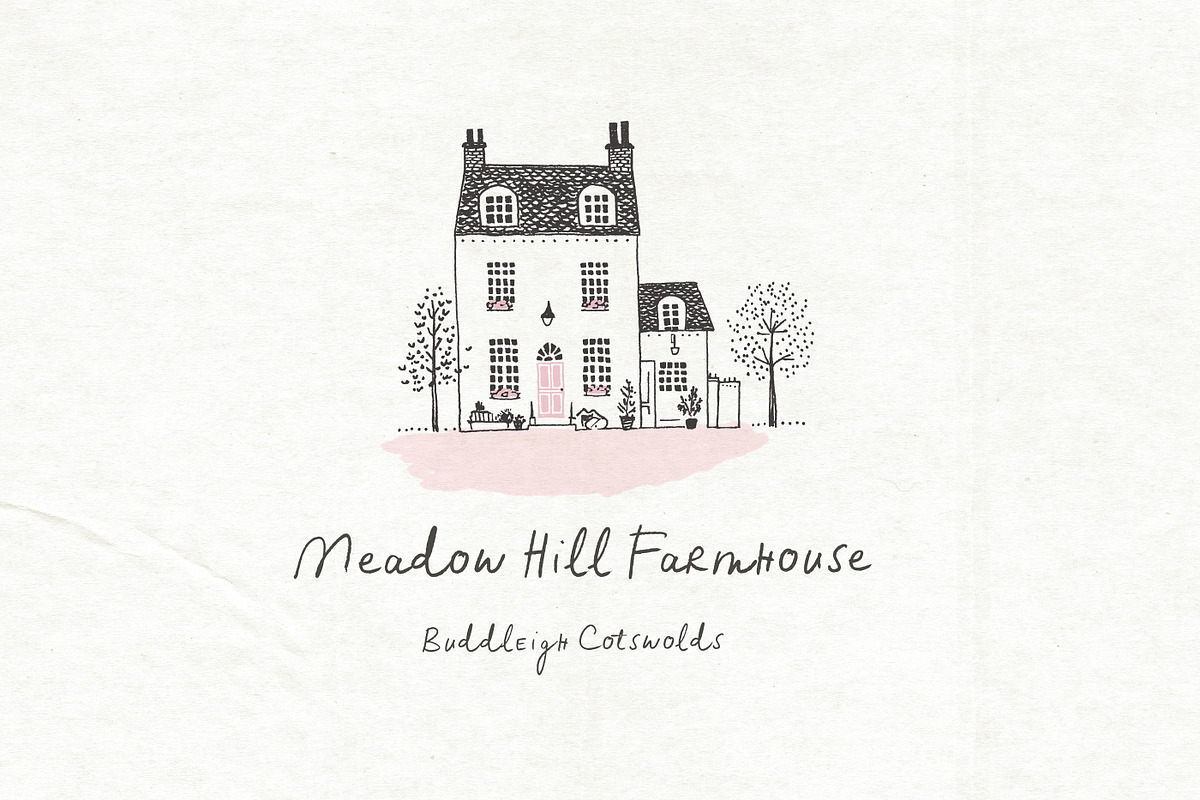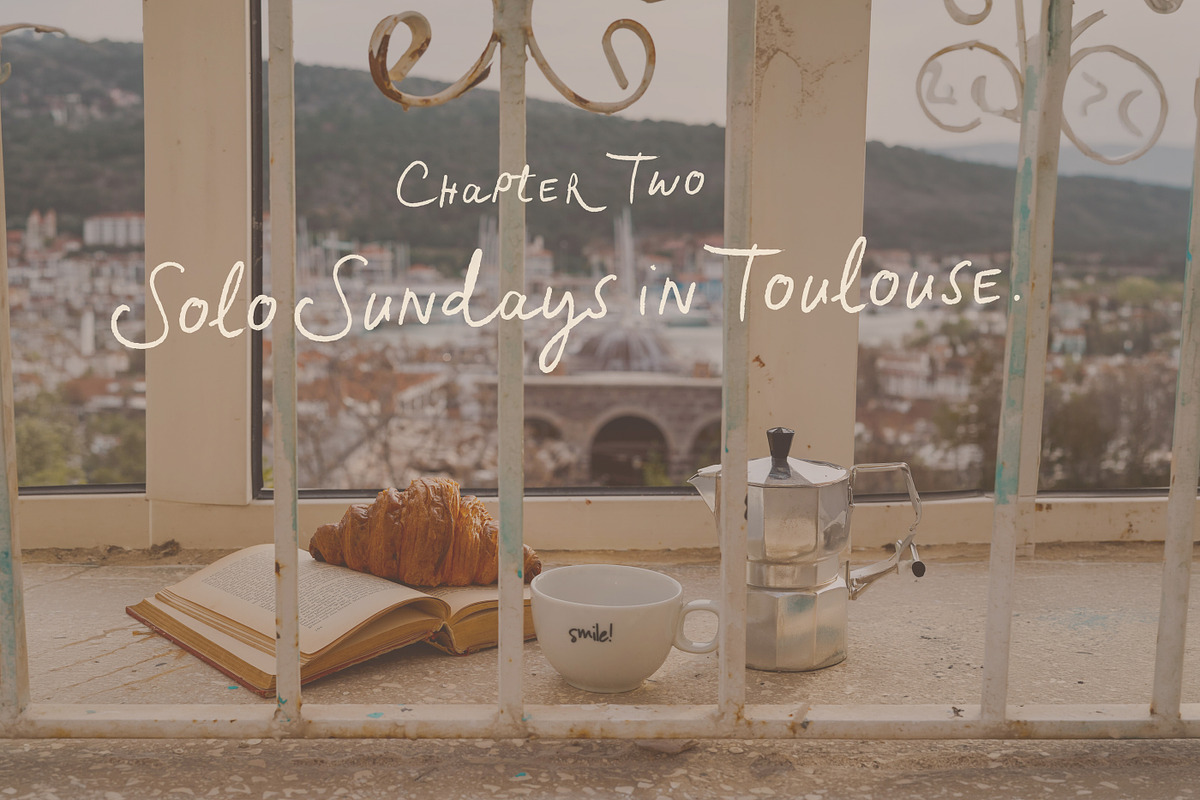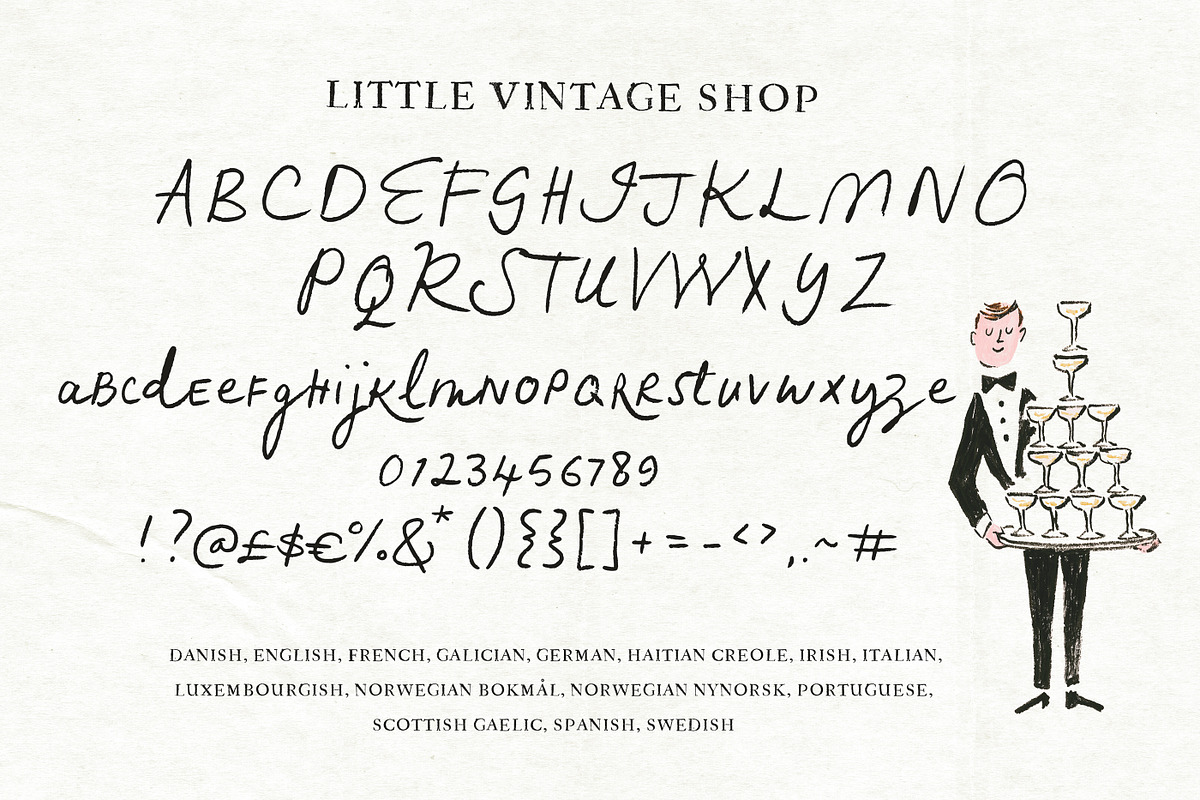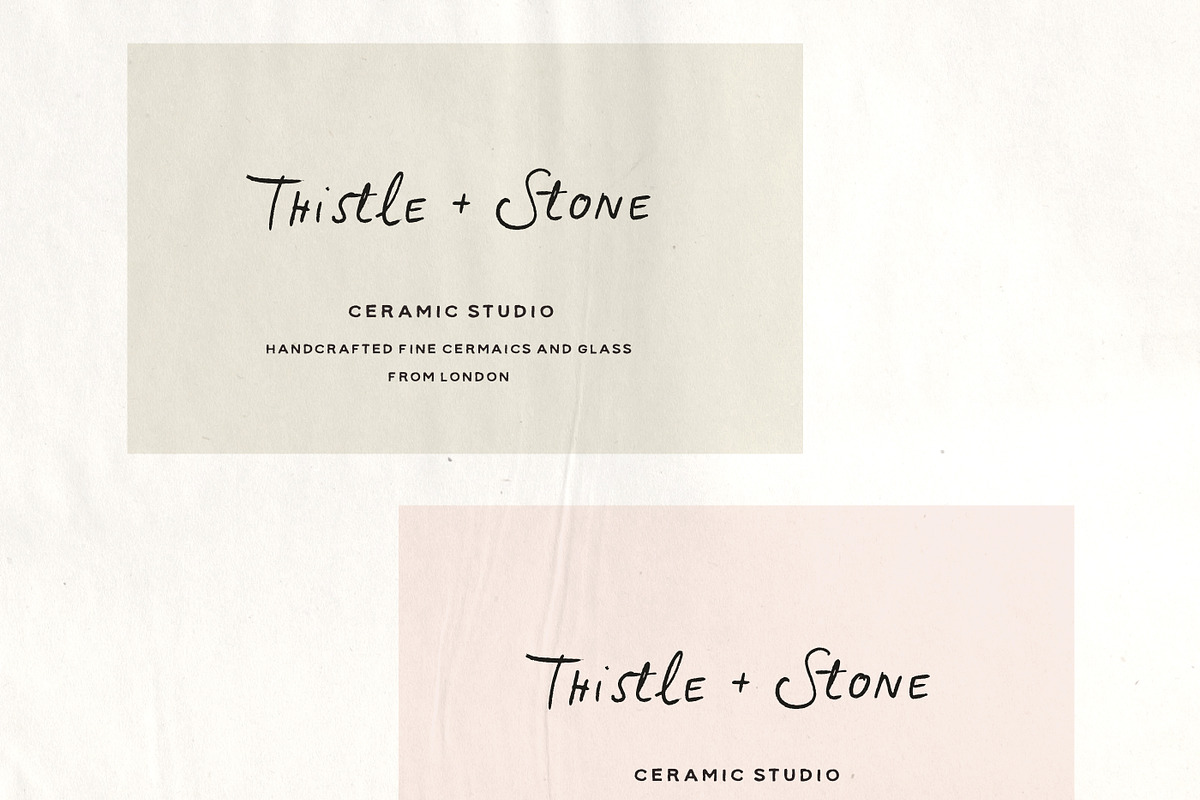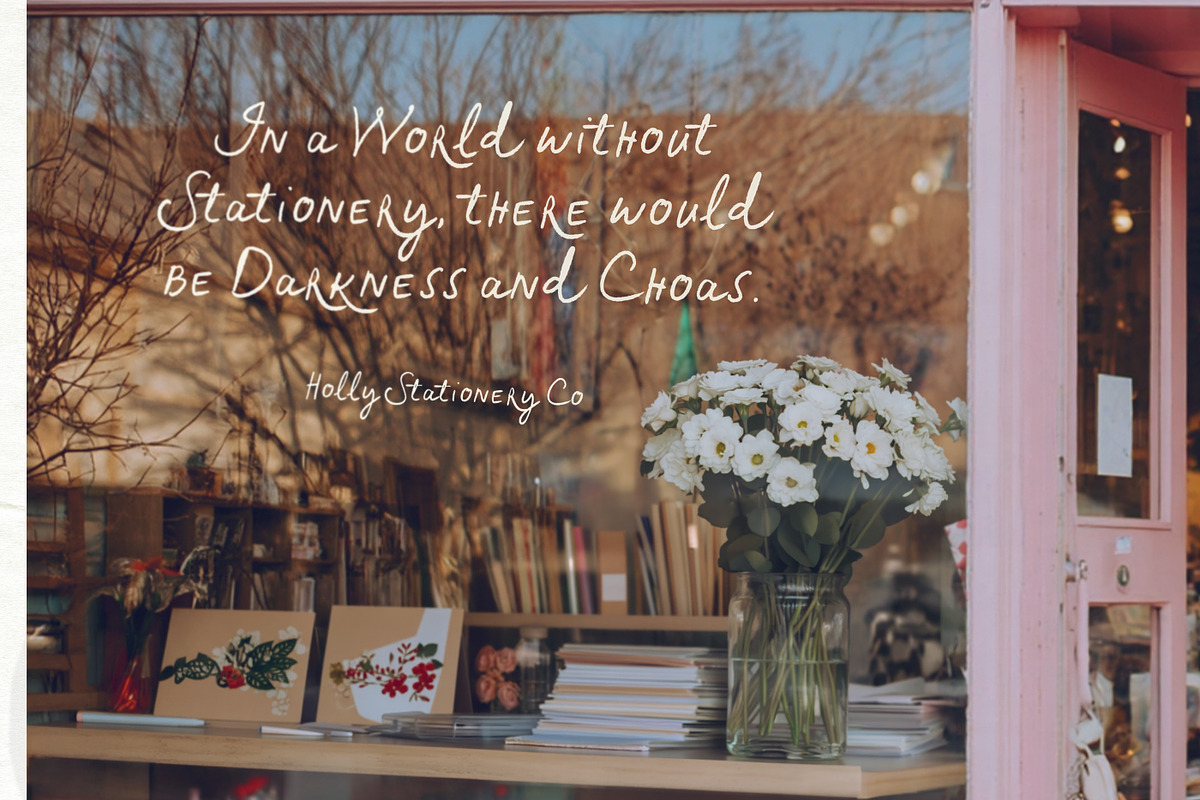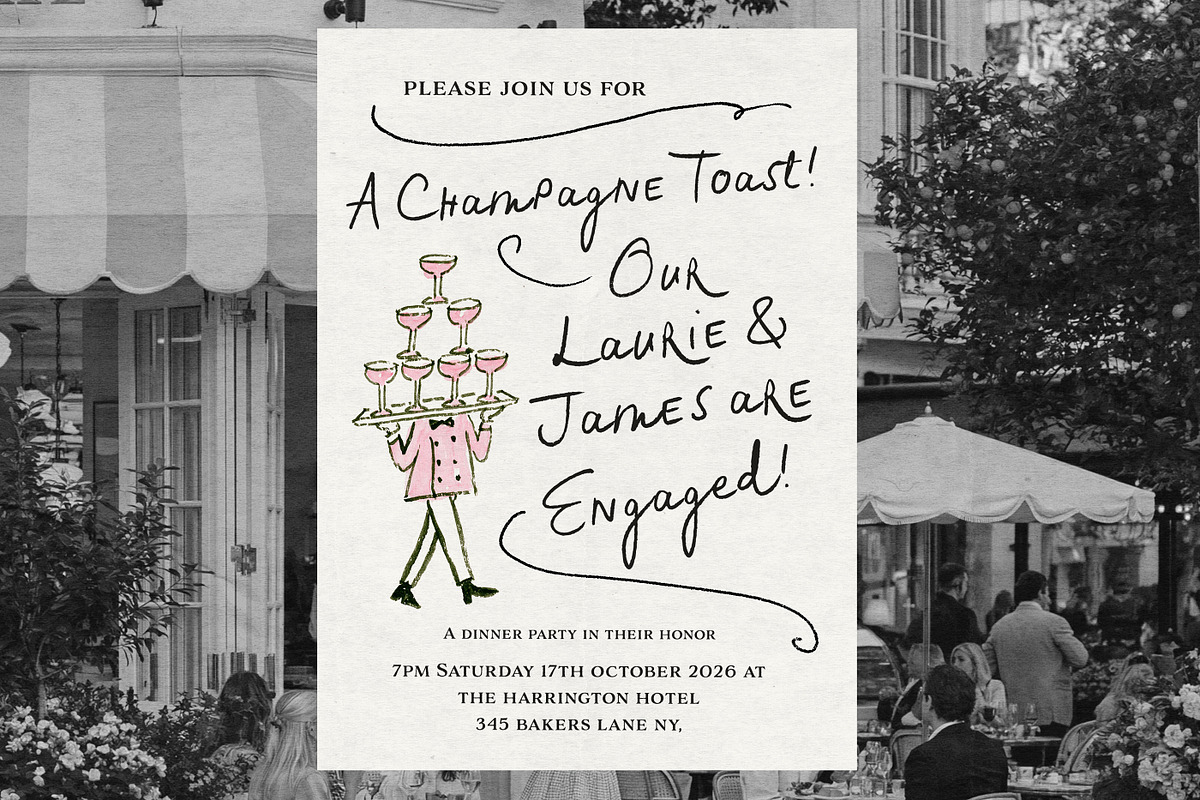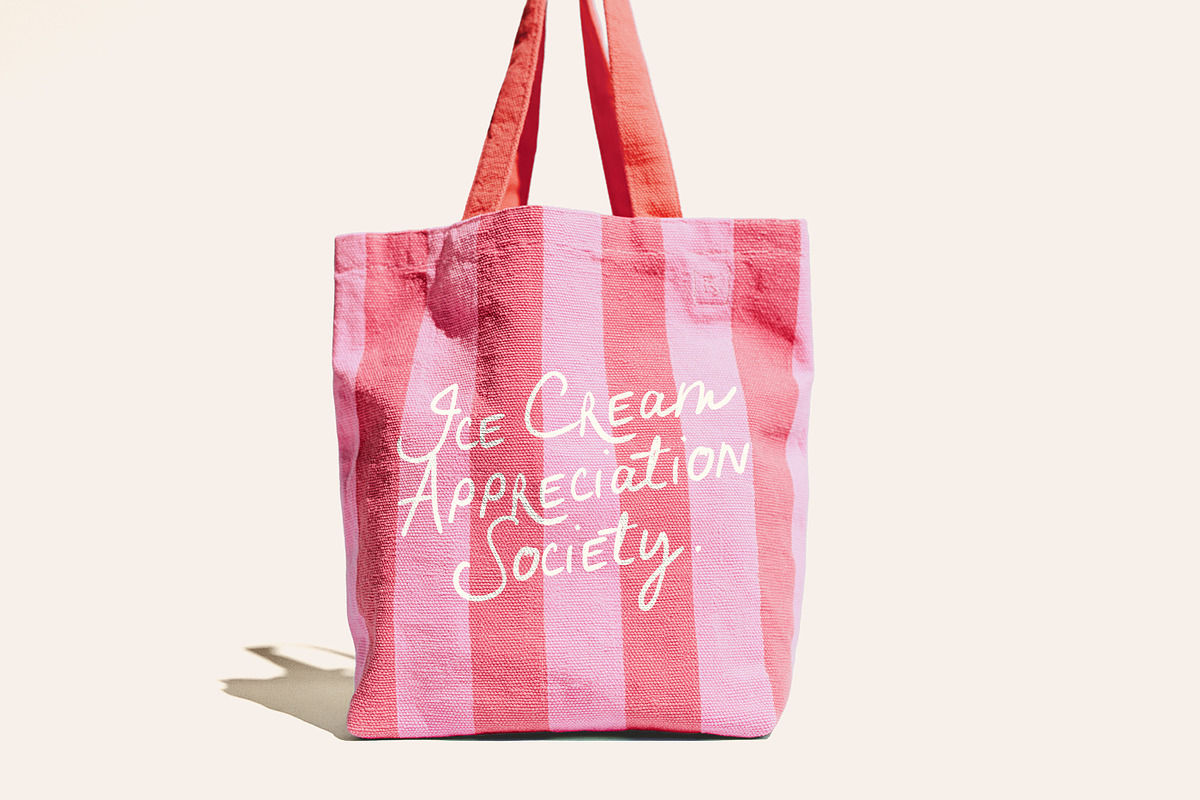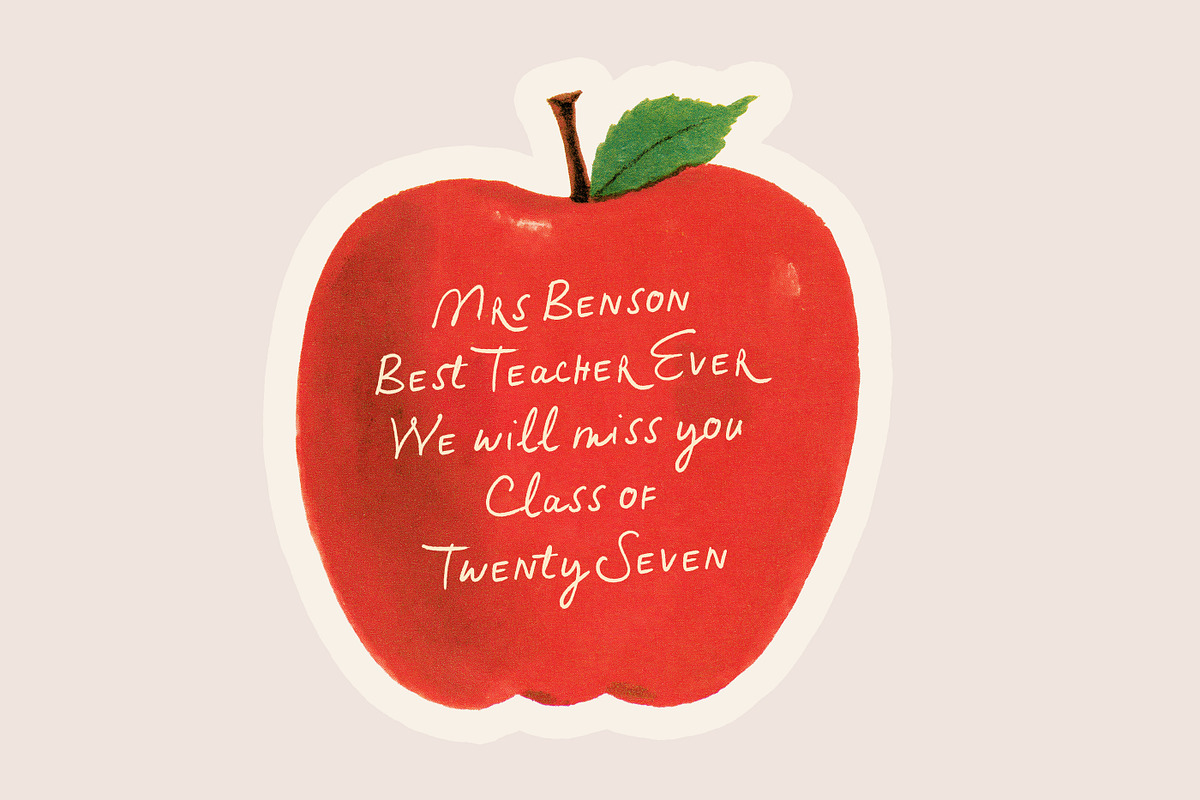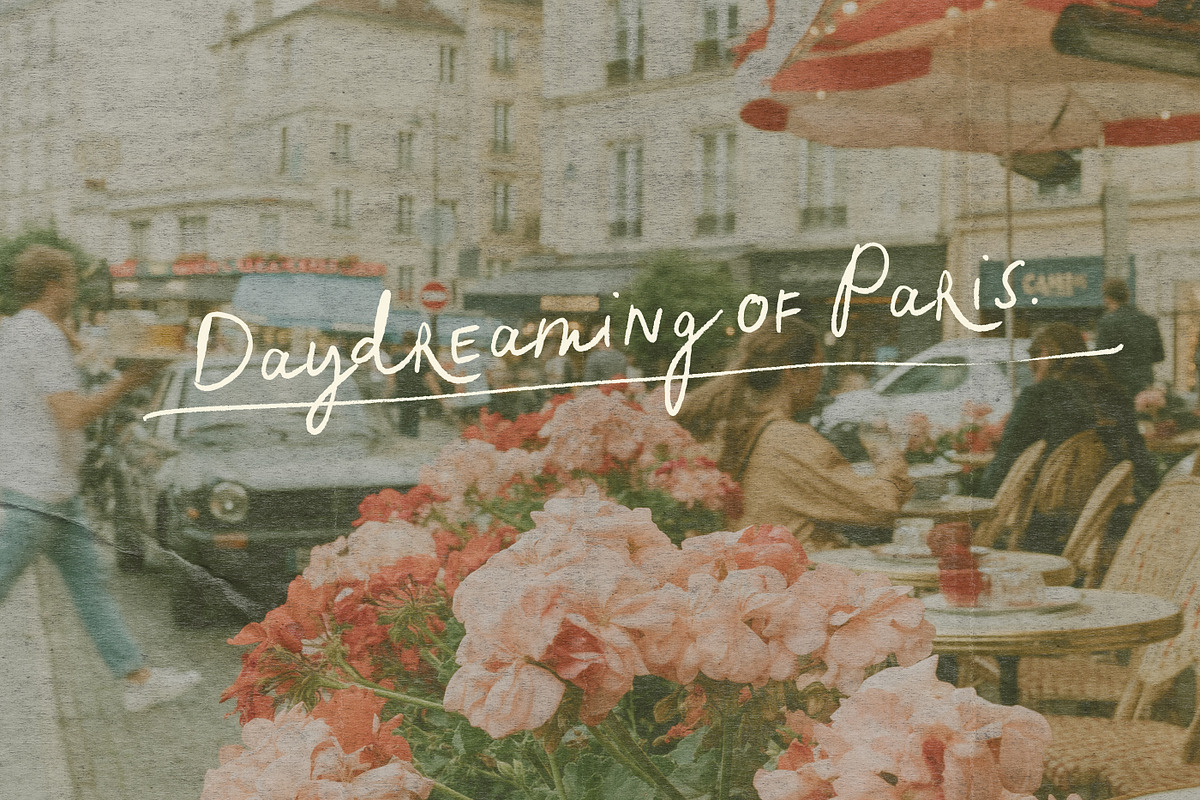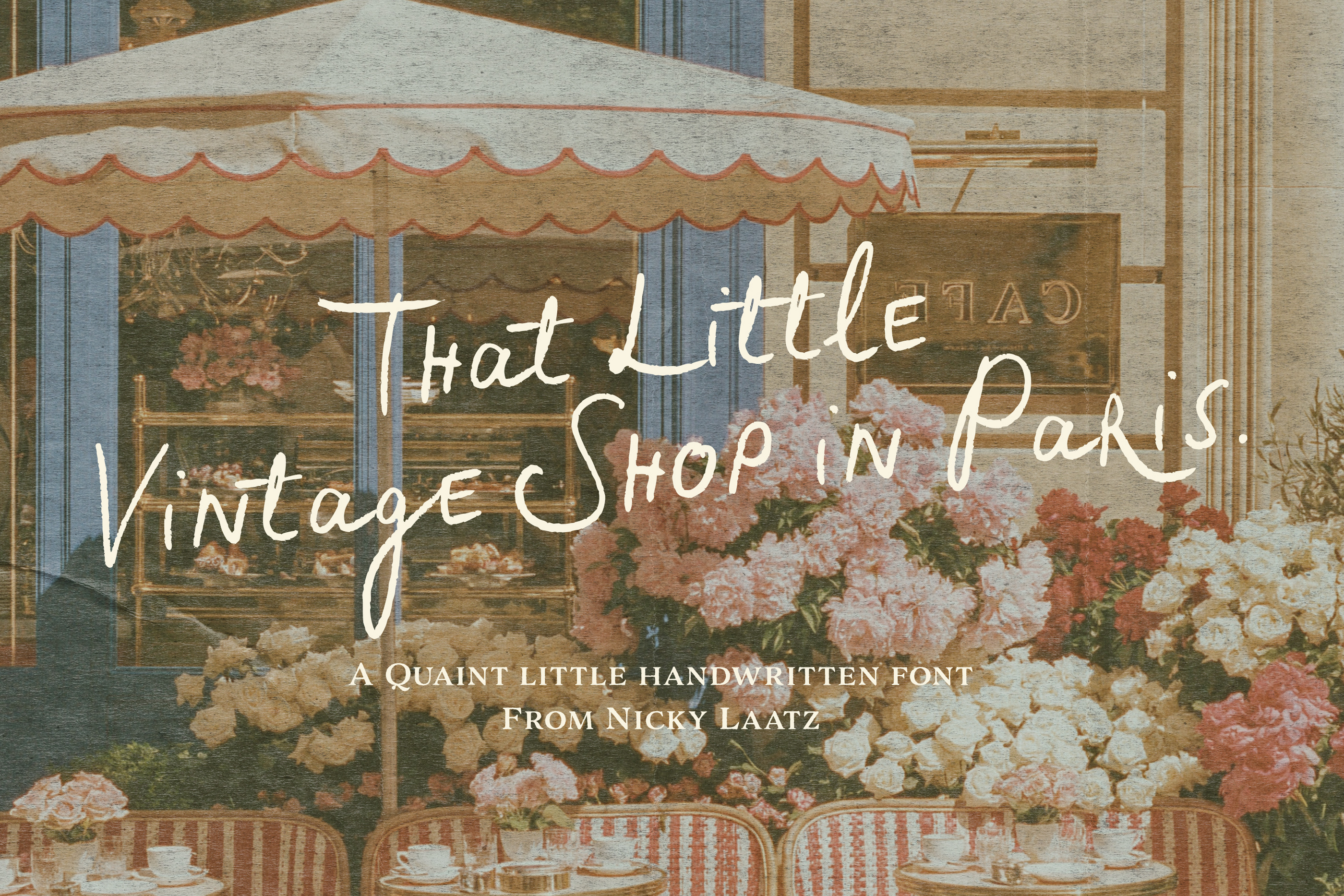
Little Vintage Shop Font
Say hello to 'Little Vintage Shop'! A Charming Handwritten Font that exudes a playful, quaint whimsy in the most warm-hearted way! Step into a world of French Vintage Flower Shops, Little Quirky Parisian Bookshops and Boutiques, and Cosy and romantic Autumn walks through Central Park :)
Handwritten subtle textured edging gives it a pen on paper sort of feel, but still with body. Designed to capture a French artisanal feel, it's perfect for dreamy quotes and captions, whimsical wedding designs, playful Parisian style invites and menus, quirky but quaint labels for candles, jams and soaps, vintage flower shop branding, sweet little greeting card designs, Illustrative fun lettering , artisanal stationery , and so much more!
An Alternate 'r' and 'e' is available in Opentype Extras for adding a slightly different feel where you need it :)
Also available in various slant variants and a slightly heavier weight.